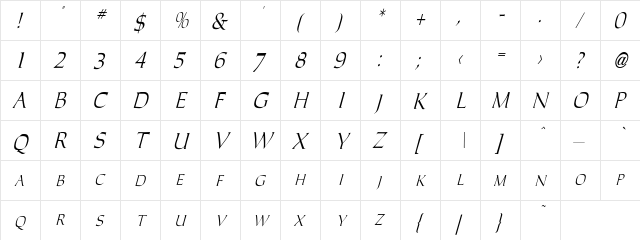
Edmund Italic Italic
Design Context for Edmund Italic Typeface
Edmund Italic offers clean, dependable letterforms without strong stylistic allegiance, making it a practical choice for designers who need flexibility. Its italic angle brings a sense of urgency and motion to the letterforms.
Pro Tip: Try Edmund Italic for annotation and caption copy alongside an upright companion — the contrast in angle creates a dynamic but ordered typographic system.